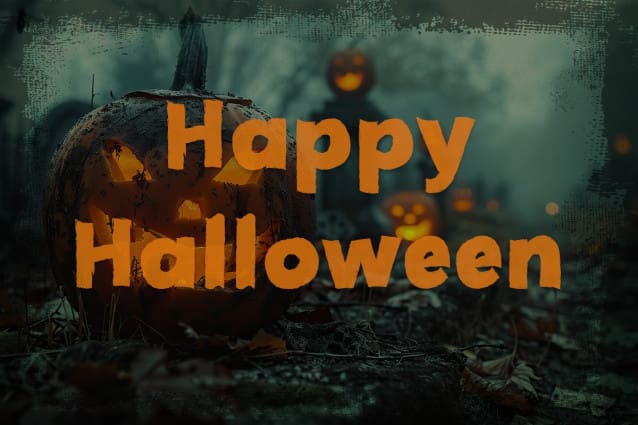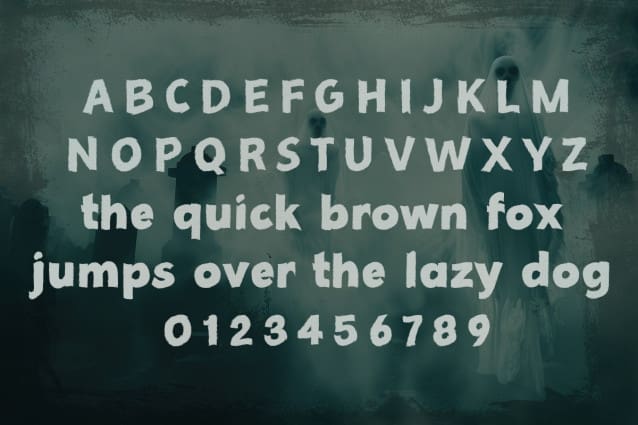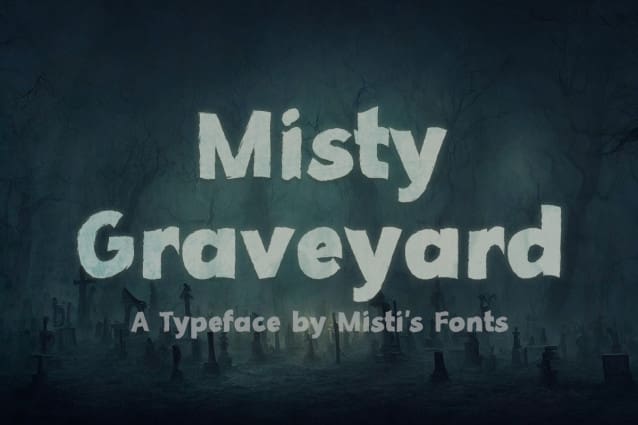
Misty Graveyard Font
Misty Graveyard Font is a spooky sans-serif font perfect for all your Halloween projects. With eerie letterforms and ghostly charm, it brings a haunting yet playful vibe to your designs. Ideal for posters, invitations, or decor, it captures the essence of Halloween spirit!